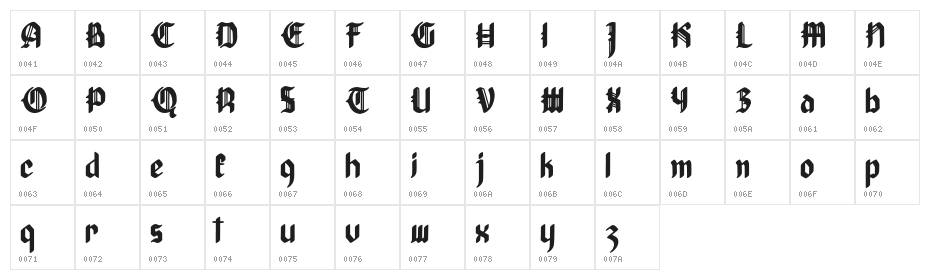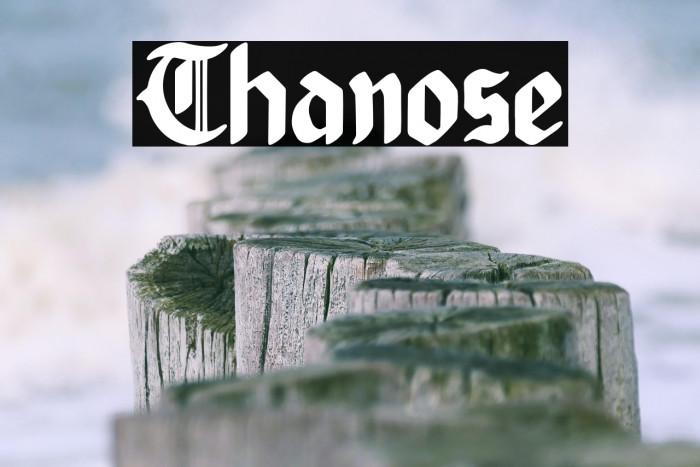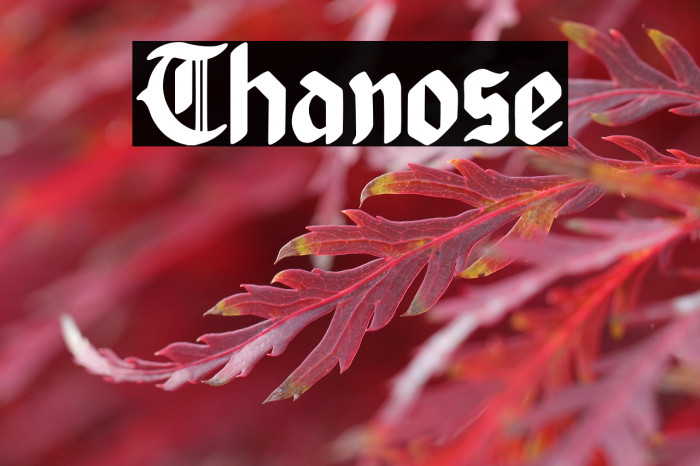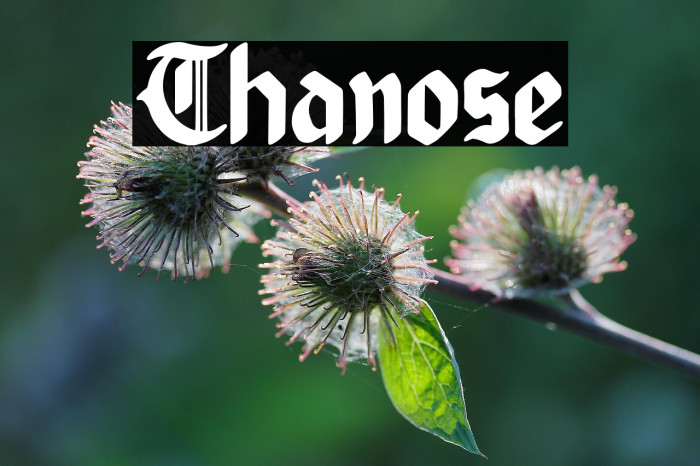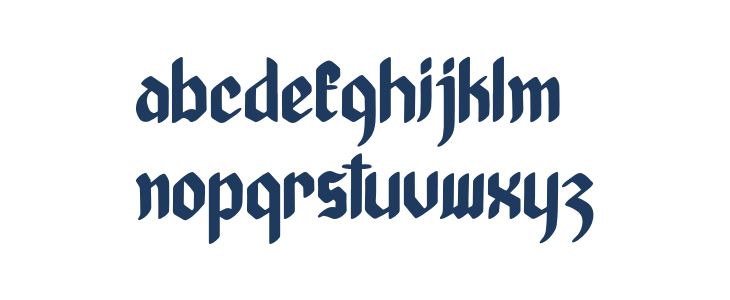
Thanose Font
Thanose Description
This font is a striking example of Blackletter style, characterized by its intricate and bold design. The uppercase letters feature sharp, angular lines with dramatic flourishes, giving them a gothic and medieval appearance. The lowercase letters maintain a similar aesthetic, with a slightly more streamlined form that enhances readability while preserving the ornate quality. The font's overall look is both traditional and imposing, making it ideal for projects that require a historical or formal touch. The consistent weight and width across characters ensure a cohesive appearance, while the high contrast in stroke thickness adds to its visual impact.